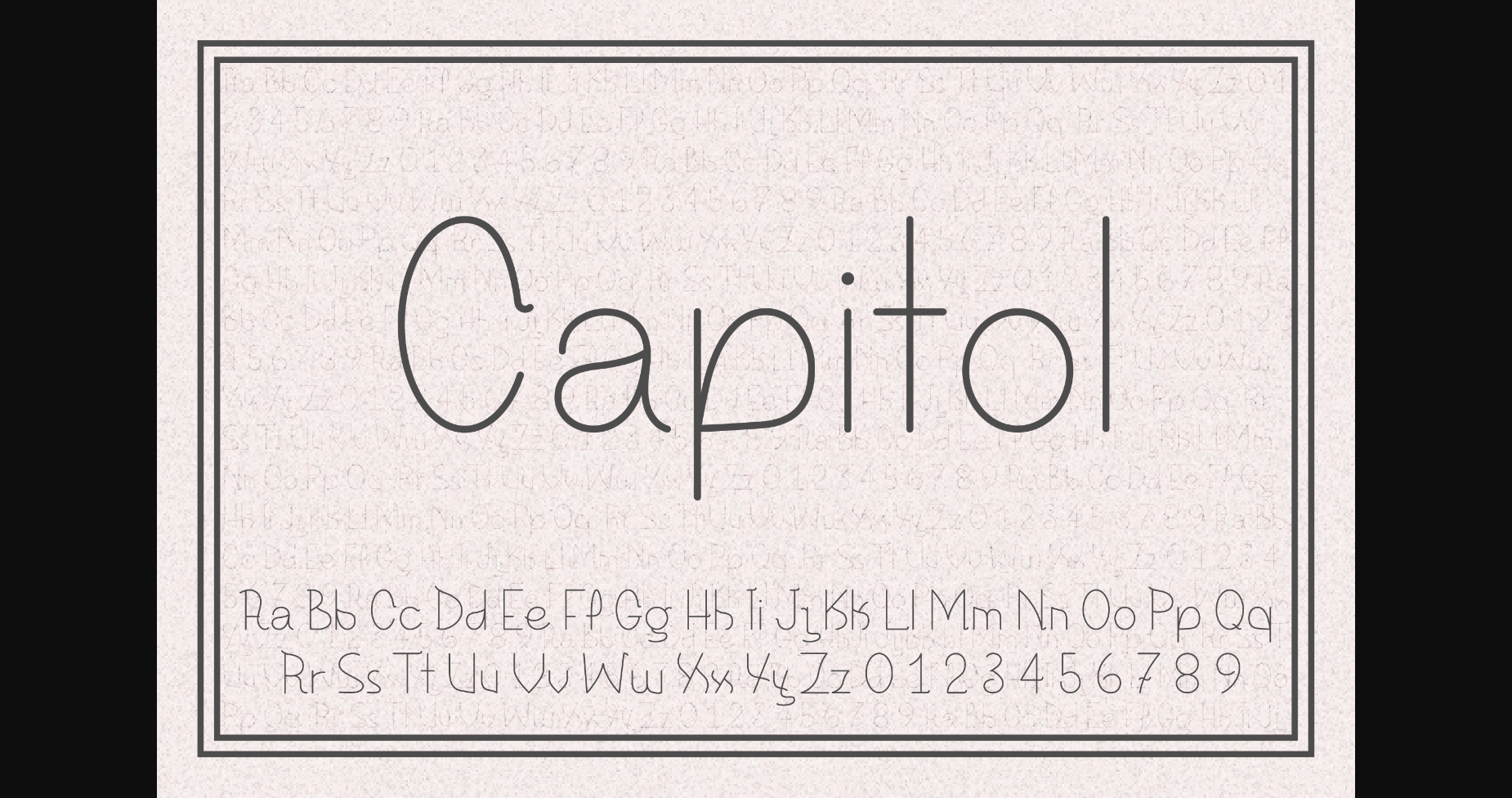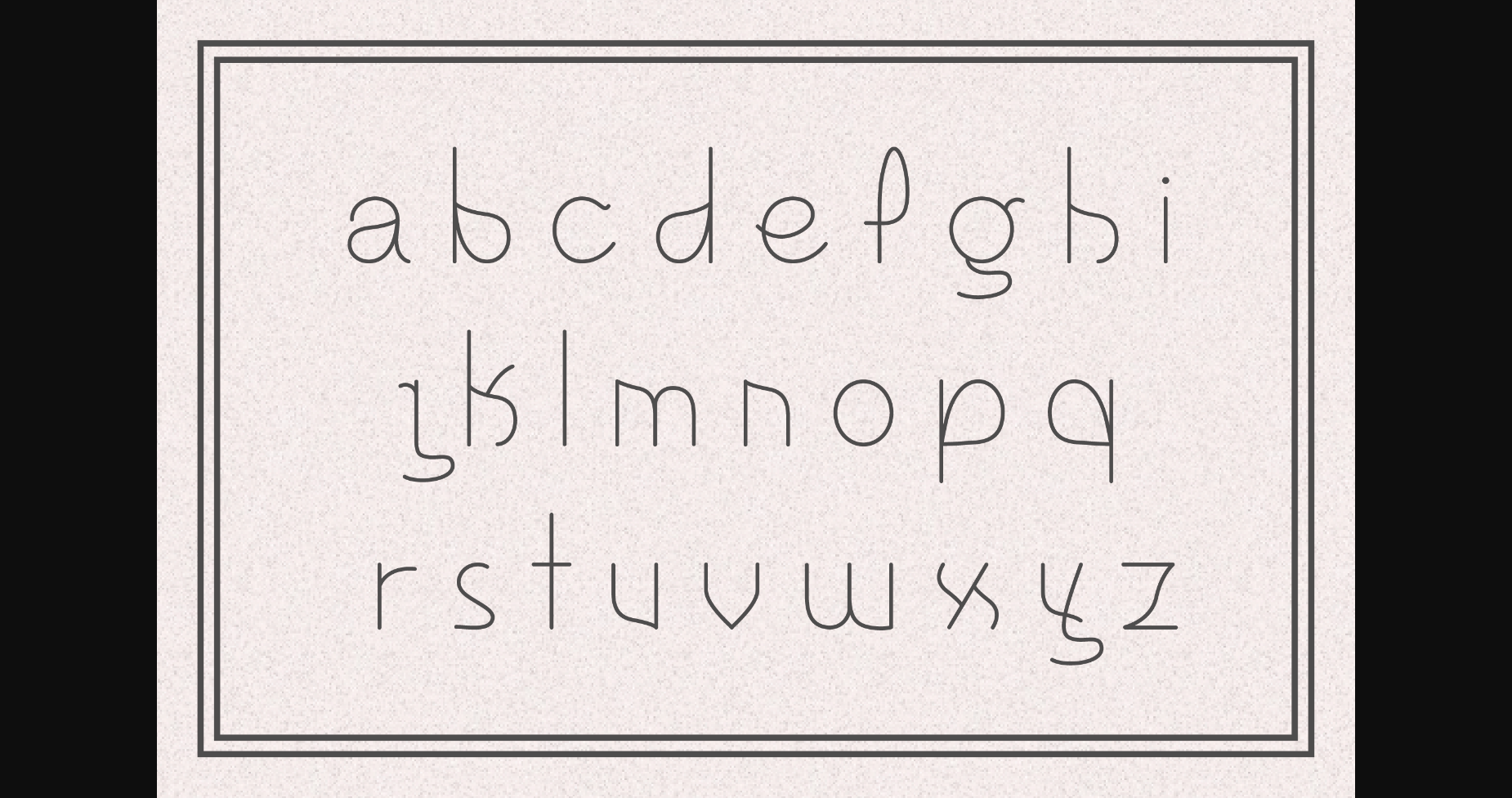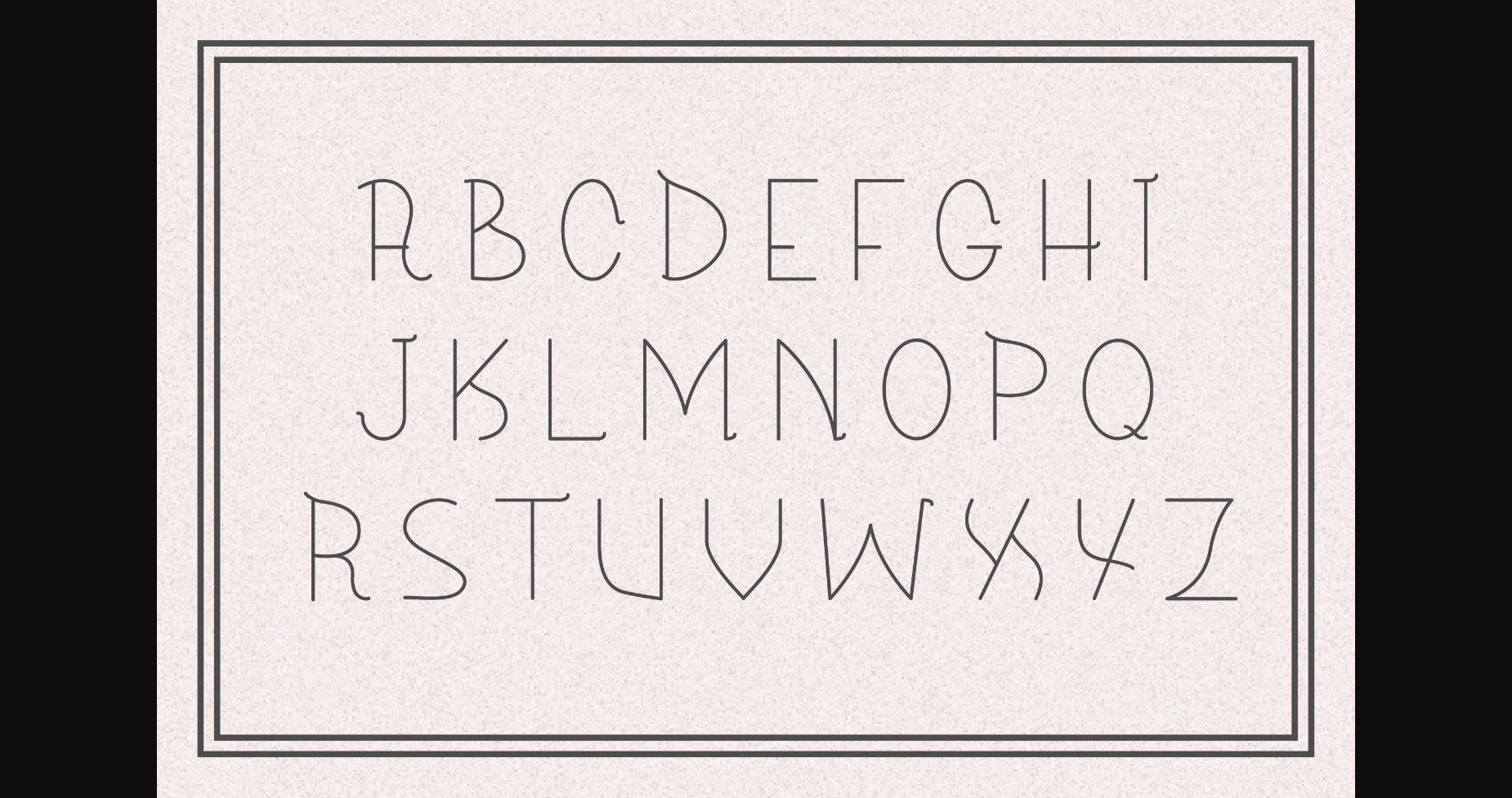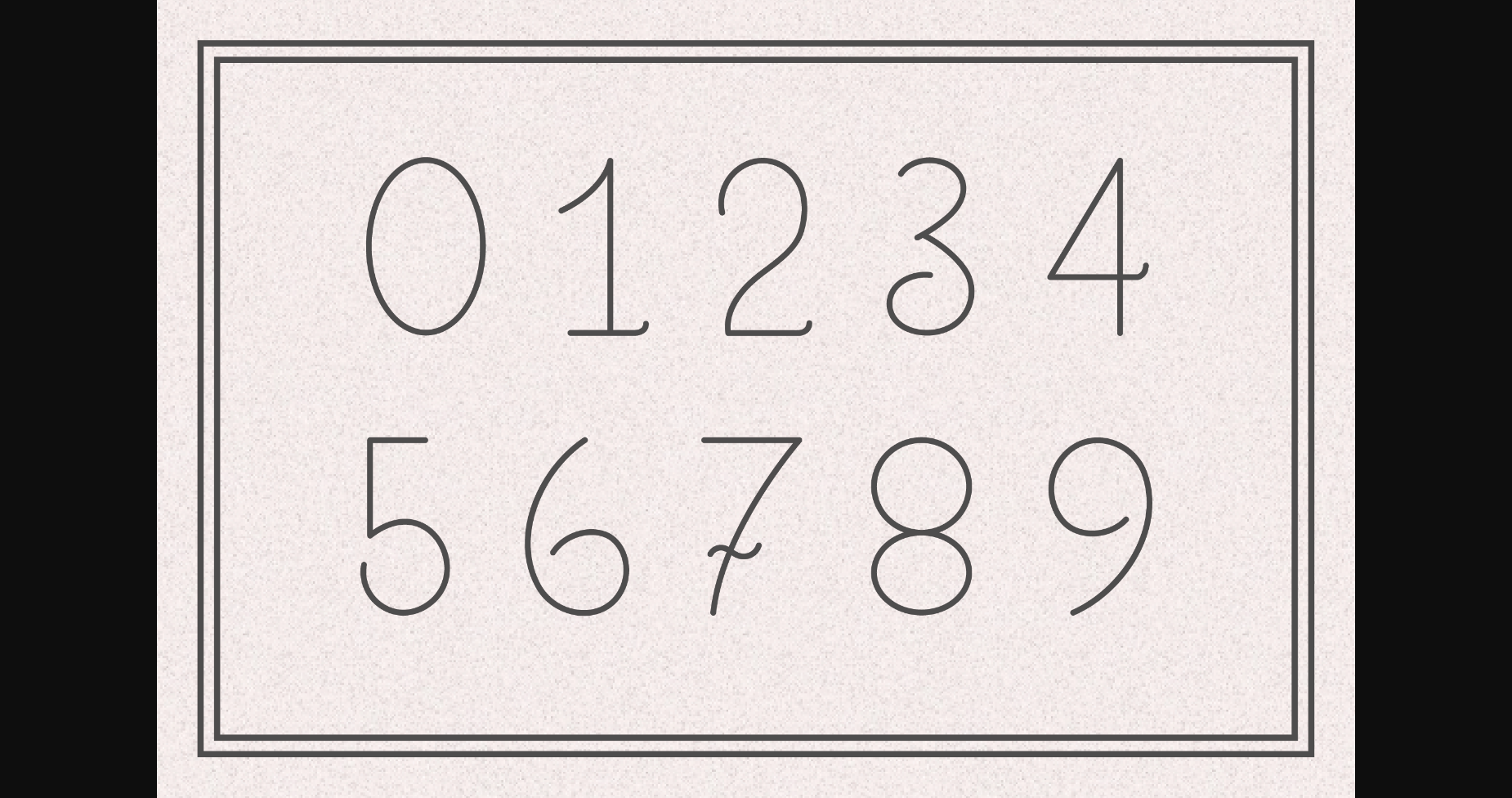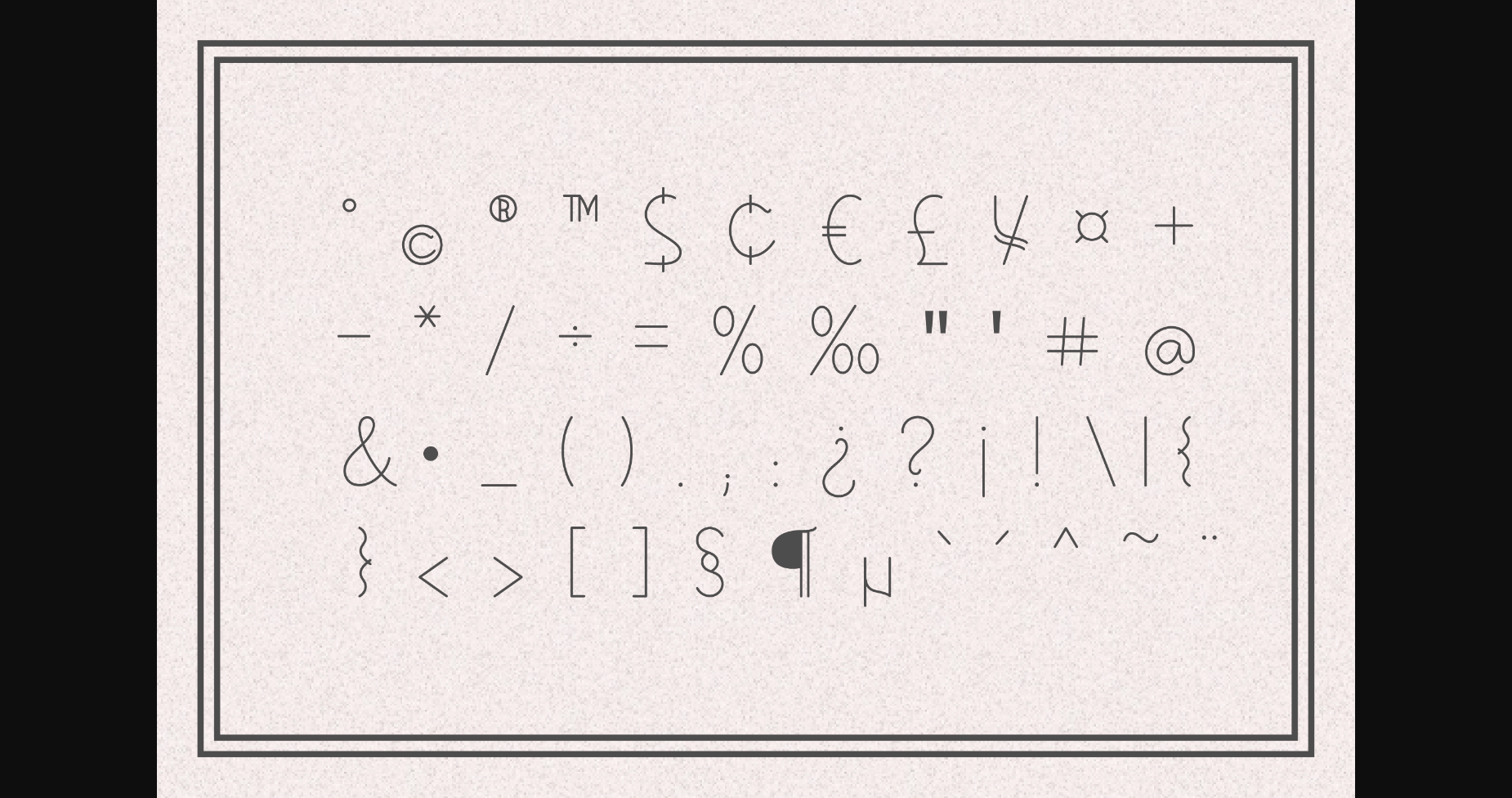
A Capitol Font
About A Capitol Font
A Capitol is a thin lettered and simple sans serif font. It can easily be matched to an incredibly large set of projects, so add it to your creative ideas and notice how it makes them stand out!